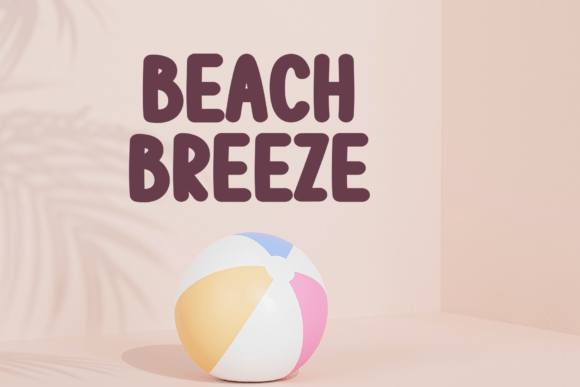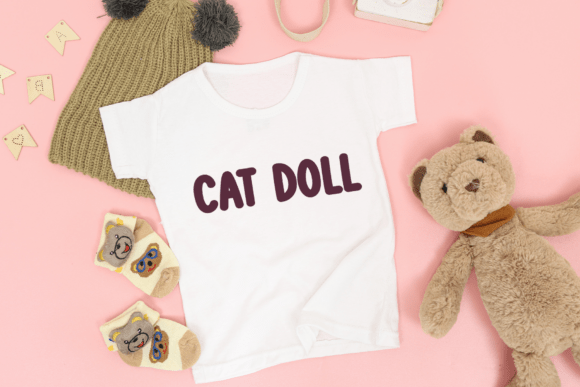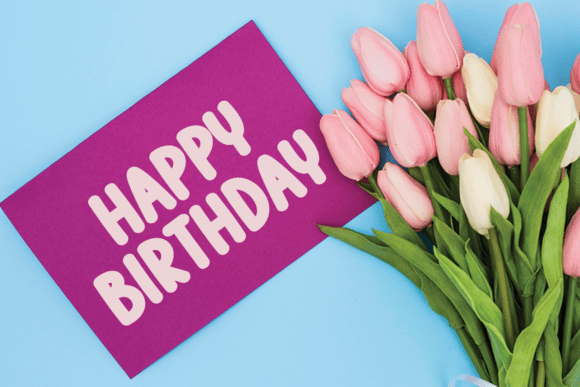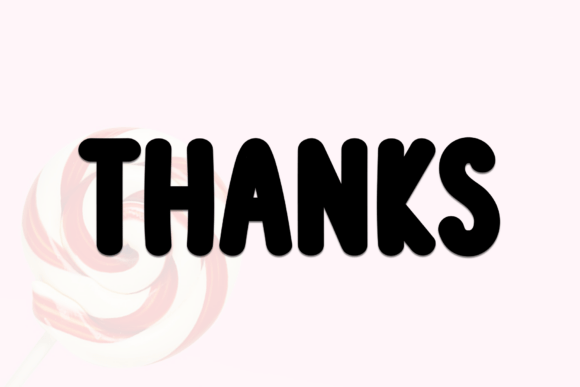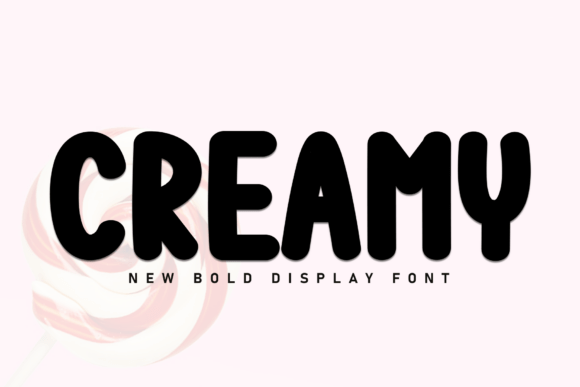
Creamy Font: The Perfect Blend of Simplicity and Friendliness
In the world of typography, fonts play a crucial role in conveying the tone and personality of a brand. For designers and crafters, finding the right font that balances simplicity with a friendly vibe can be a daunting task. This is where the Creamy font comes in – a casual and neat display font that combines the best of both worlds. In this article, we’ll dive into the features and benefits of the Creamy font, and explore how it can elevate your designs to the next level.
Clean Lines, Balanced Letterforms, and Subtle Rounded Edges
The Creamy font boasts clean lines, balanced letterforms, and subtle rounded edges that give it a unique and polished finish. The font’s design is inspired by modern handwritten typography, which makes it perfect for adding a personal touch to your designs. The clean lines and balanced letterforms ensure that the font is easy to read, while the subtle rounded edges add a touch of warmth and friendliness.
Ideal for Branding, Headlines, Packaging, and Digital Content
The Creamy font is incredibly versatile and can be used for a wide range of design applications. Whether you’re working on a branding project, creating headlines for a website, designing packaging for a product, or crafting digital content, this font is sure to deliver. Its warm and inviting tone makes it perfect for designs that require a personal touch, while its crisp structure ensures that it remains clear and legible.
Adding a Warm and Inviting Touch to Your Designs
One of the standout features of the Creamy font is its ability to add a warm and inviting touch to any design. The font’s friendly vibe makes it perfect for designs that require a personal and approachable tone. Whether you’re designing for a lifestyle brand, a food blog, or a craft business, the Creamy font is sure to help you connect with your audience.
Versatility and Legibility
The Creamy font is designed to be versatile and legible, making it perfect for a wide range of design applications. The font’s crisp structure ensures that it remains clear and easy to read, even at smaller sizes. This makes it perfect for designs that require a font that can be used across multiple platforms and applications.
So, what are the benefits of using the Creamy font for designers and crafters? Here are just a few:
- Easy to read: The Creamy font is designed to be easy to read, making it perfect for designs that require a clear and legible font.
- Versatile: The font is incredibly versatile and can be used for a wide range of design applications.
- Warm and inviting: The font’s friendly vibe makes it perfect for designs that require a personal and approachable tone.
- Polished finish: The font’s subtle rounded edges and balanced letterforms give it a polished finish that’s sure to elevate your designs.
In conclusion, the Creamy font is a casual and neat display font that combines simplicity with a friendly, approachable vibe. Its clean lines, balanced letterforms, and subtle rounded edges make it perfect for adding a warm and inviting touch to any design. With its versatility, legibility, and polished finish, this font is sure to become a go-to for designers and crafters. Whether you’re working on a branding project, creating headlines, designing packaging, or crafting digital content, the Creamy font is sure to deliver clarity and charm in equal measure.